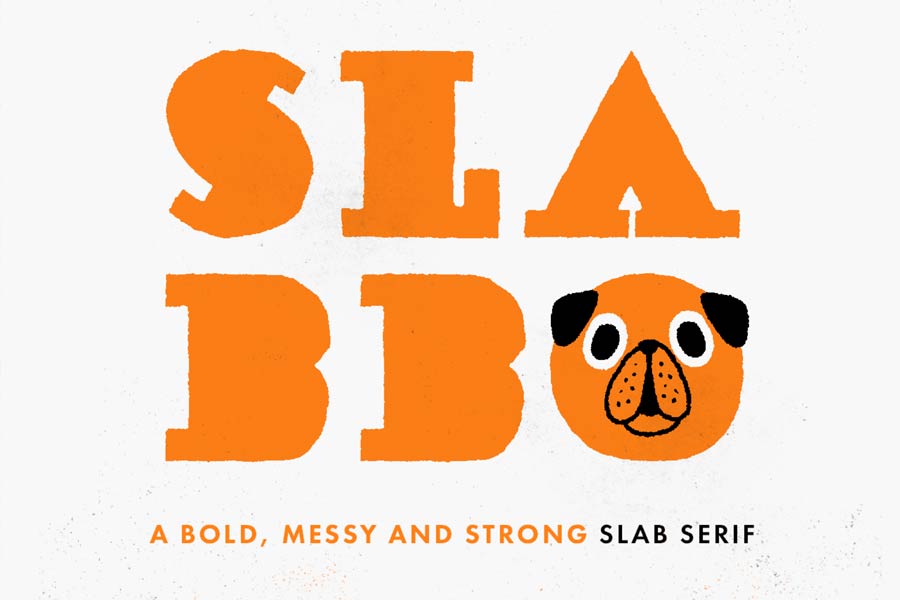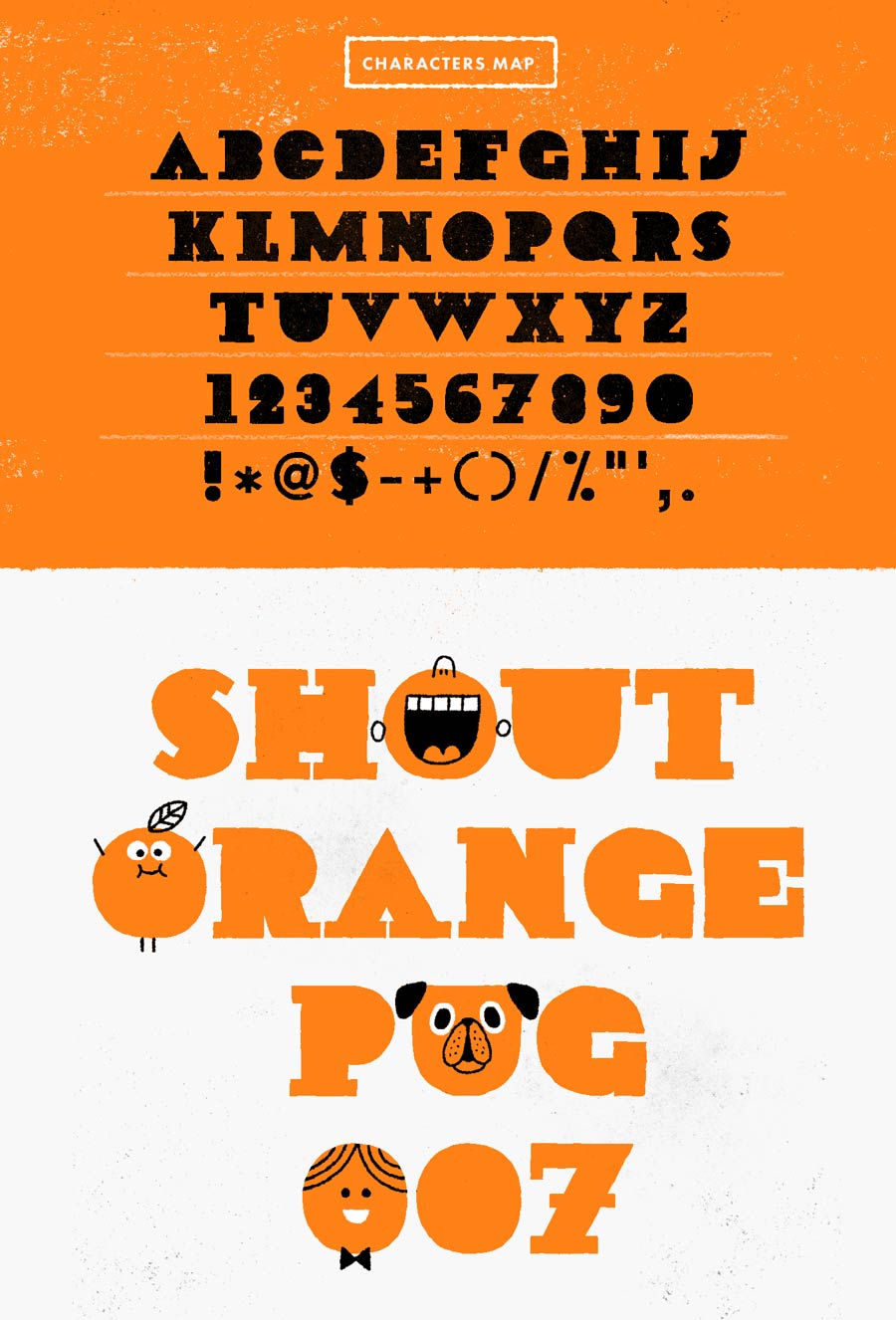
Slabbo is a bold, messy and strong slab serif font you can download for free! It has the sense of naiveness, and works perfectly when incorporating with cute graphics as shown in the preview picture below. I like the rugged feeling of the shapes of the characters.
- Designer: Mauro Gatti
- Category: Playful, Slab Serif